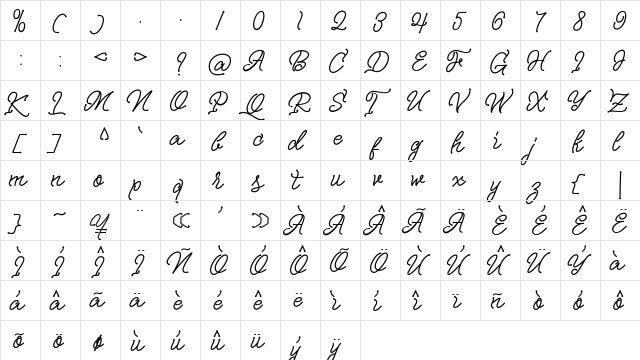
Nagata Script Regular
| Foundry | cropstudio |
Design Context for Nagata Script Typeface
Nagata Script brings a calligraphic fluidity to the page — its connecting strokes and expressive curves give it an unmistakably human quality.